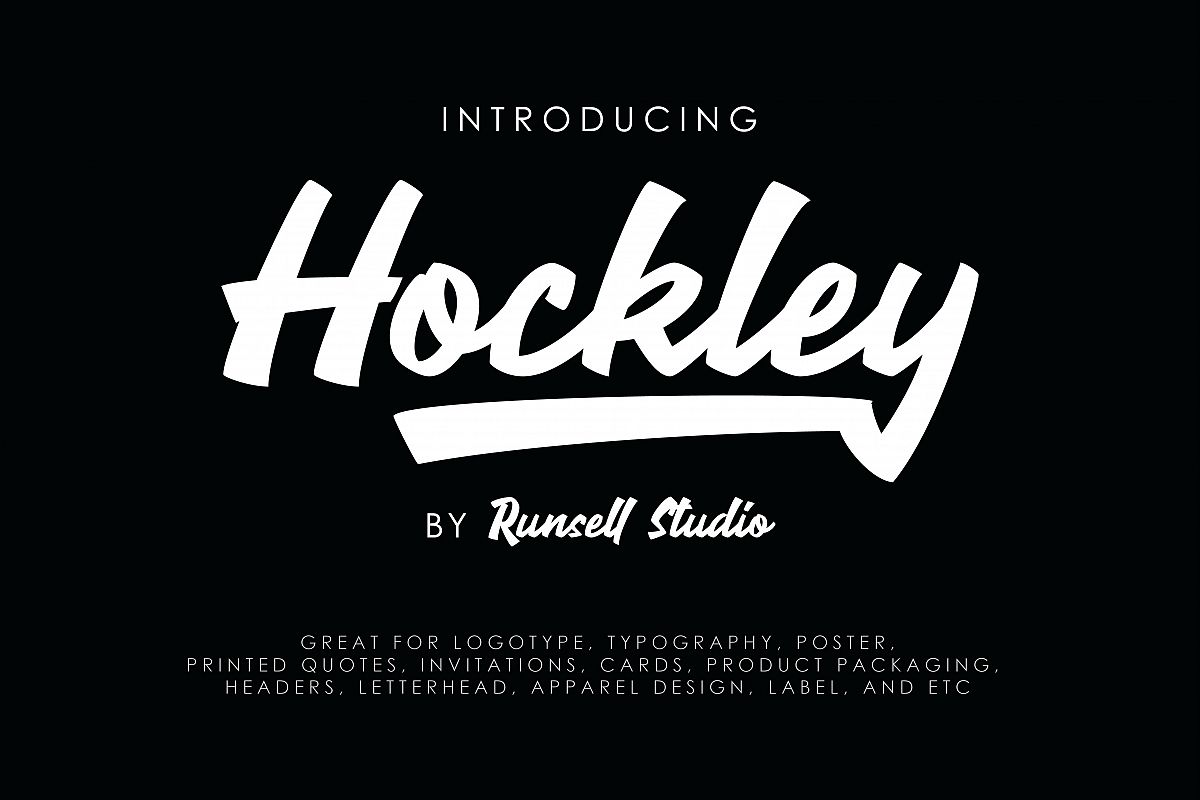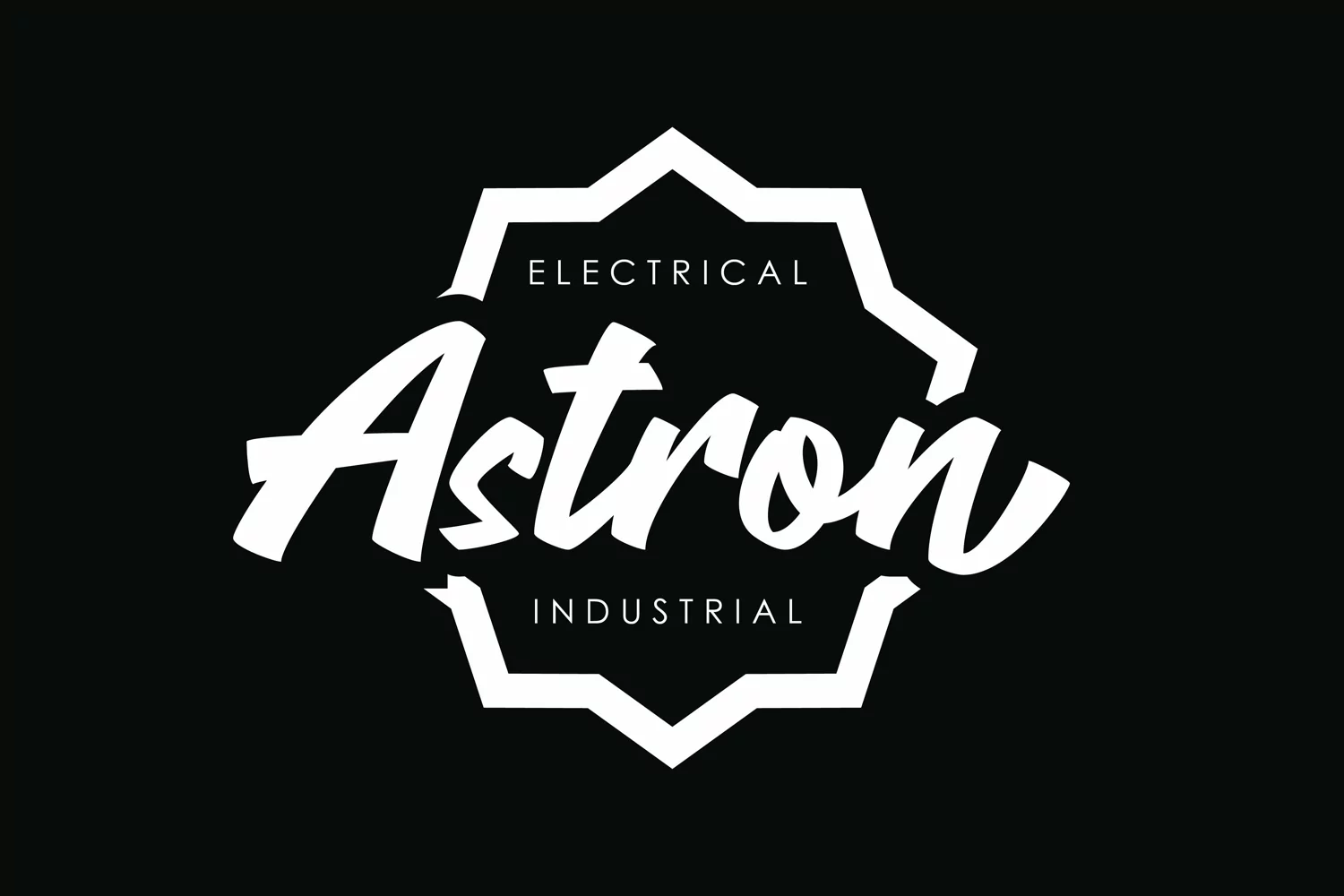
Hockley is a great font for display, logotype, typography, poster, printed quotes, invitations, cards, product packaging, headers, letterhead, apparel design, label, and etc.
Hockley comes with uppercase, lowercase, numerals, punctuation, multilingual characters.
• Stylistic Alternate
• Swash Variant
Hockley also included